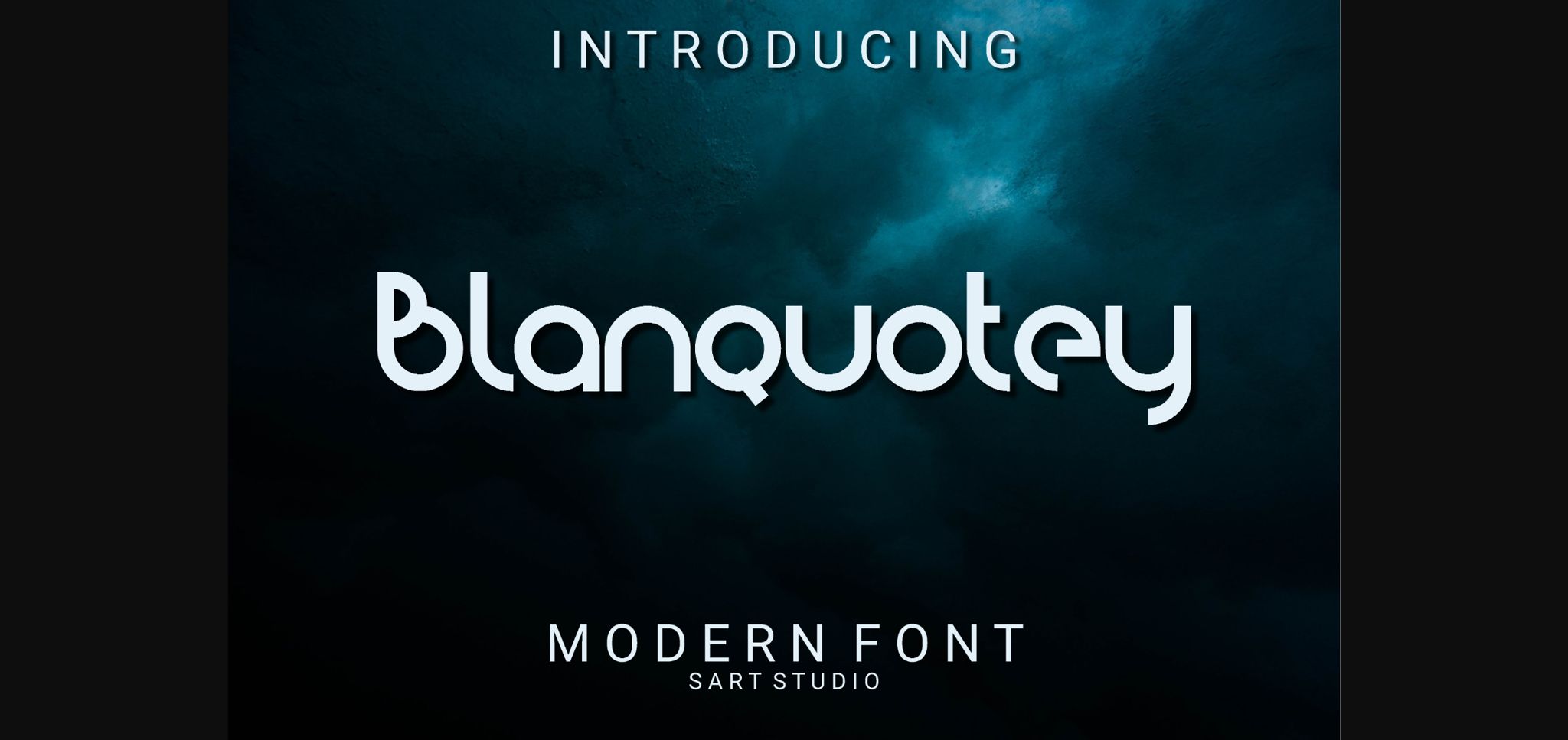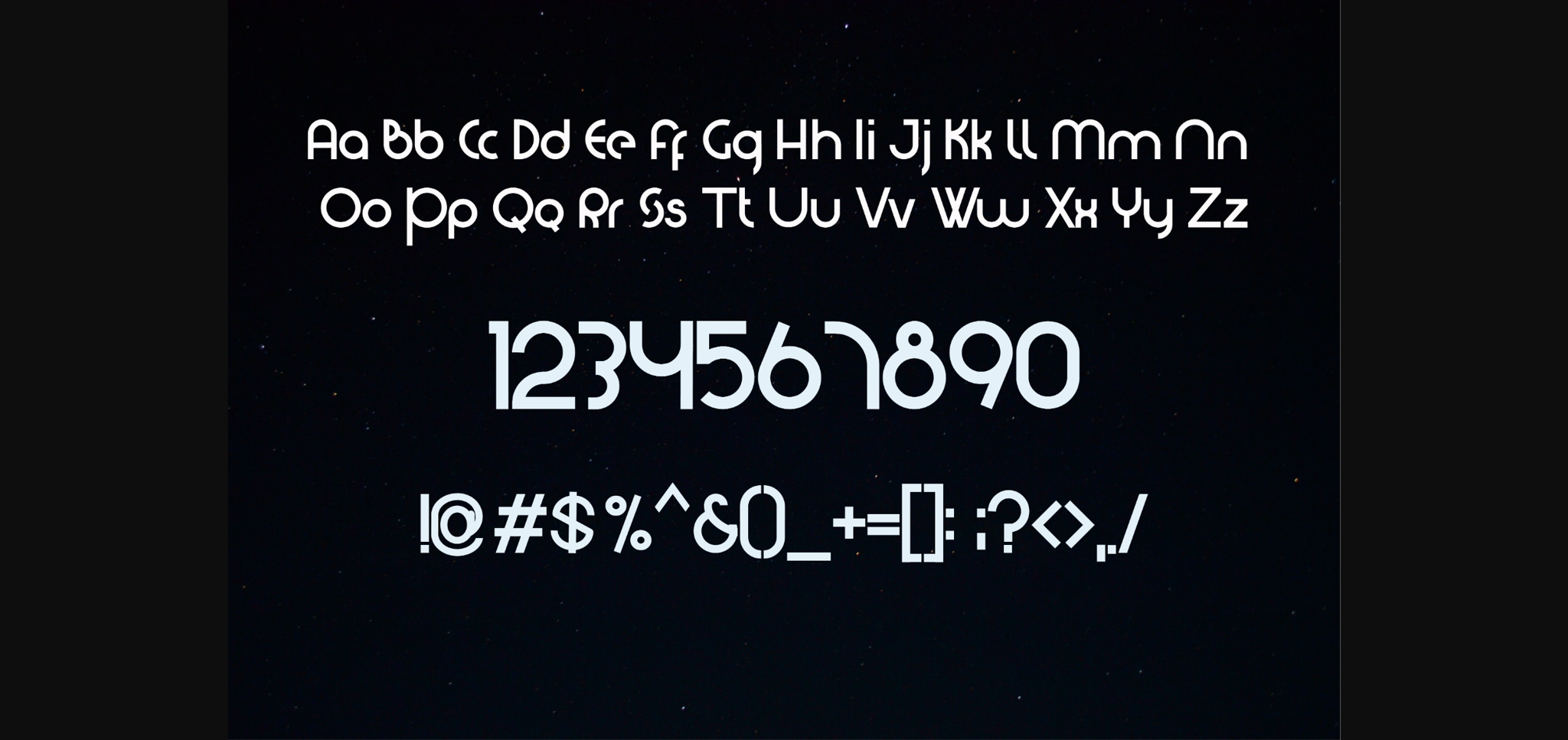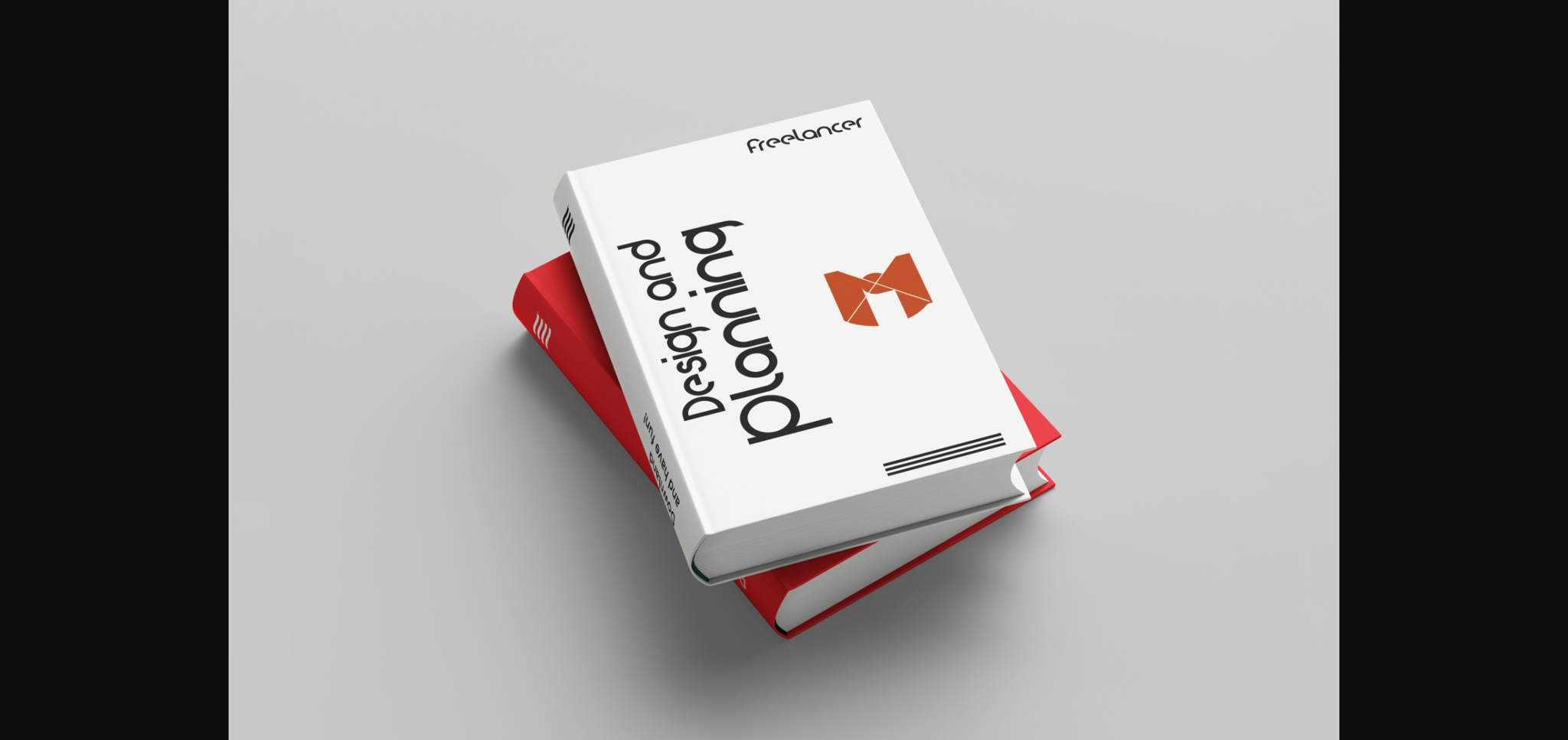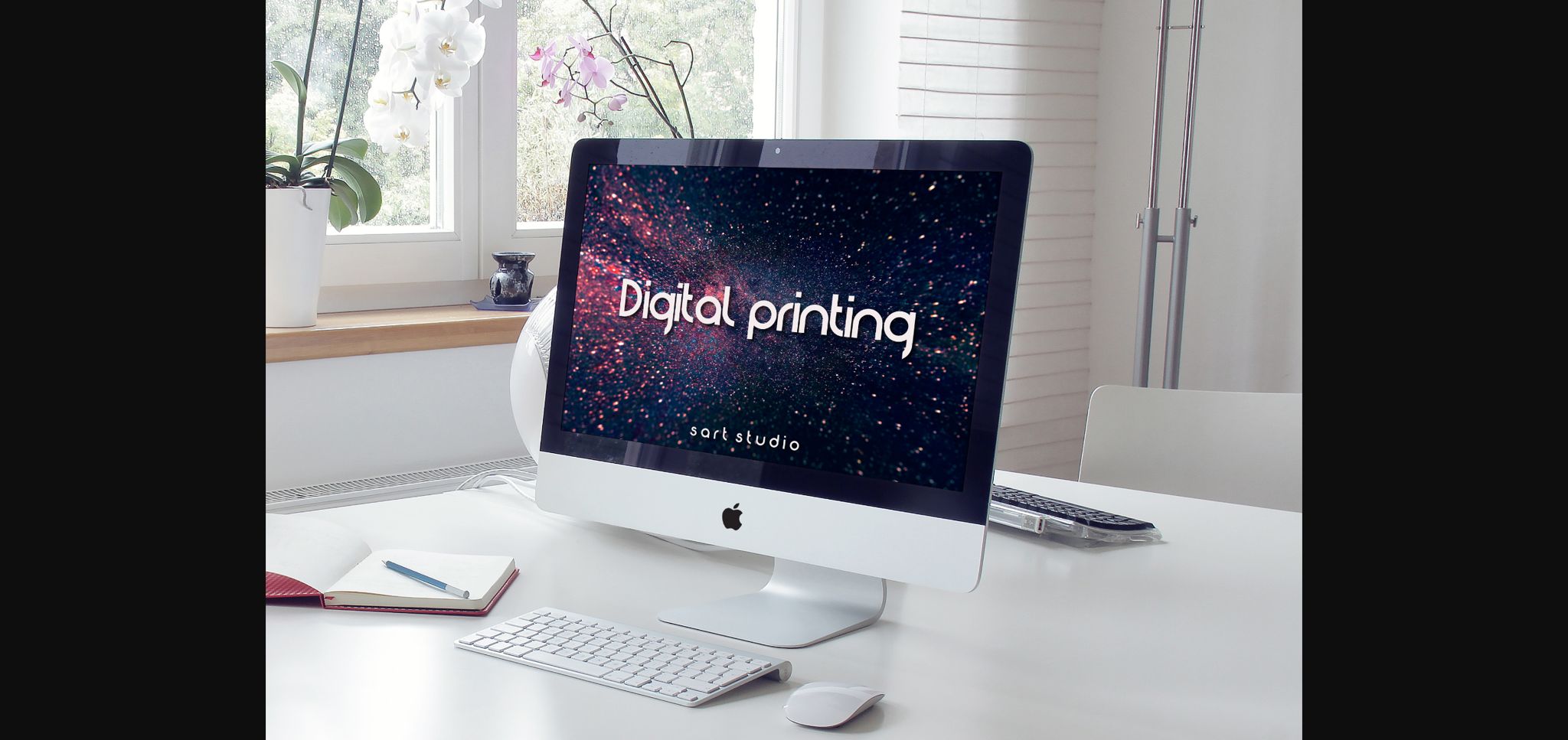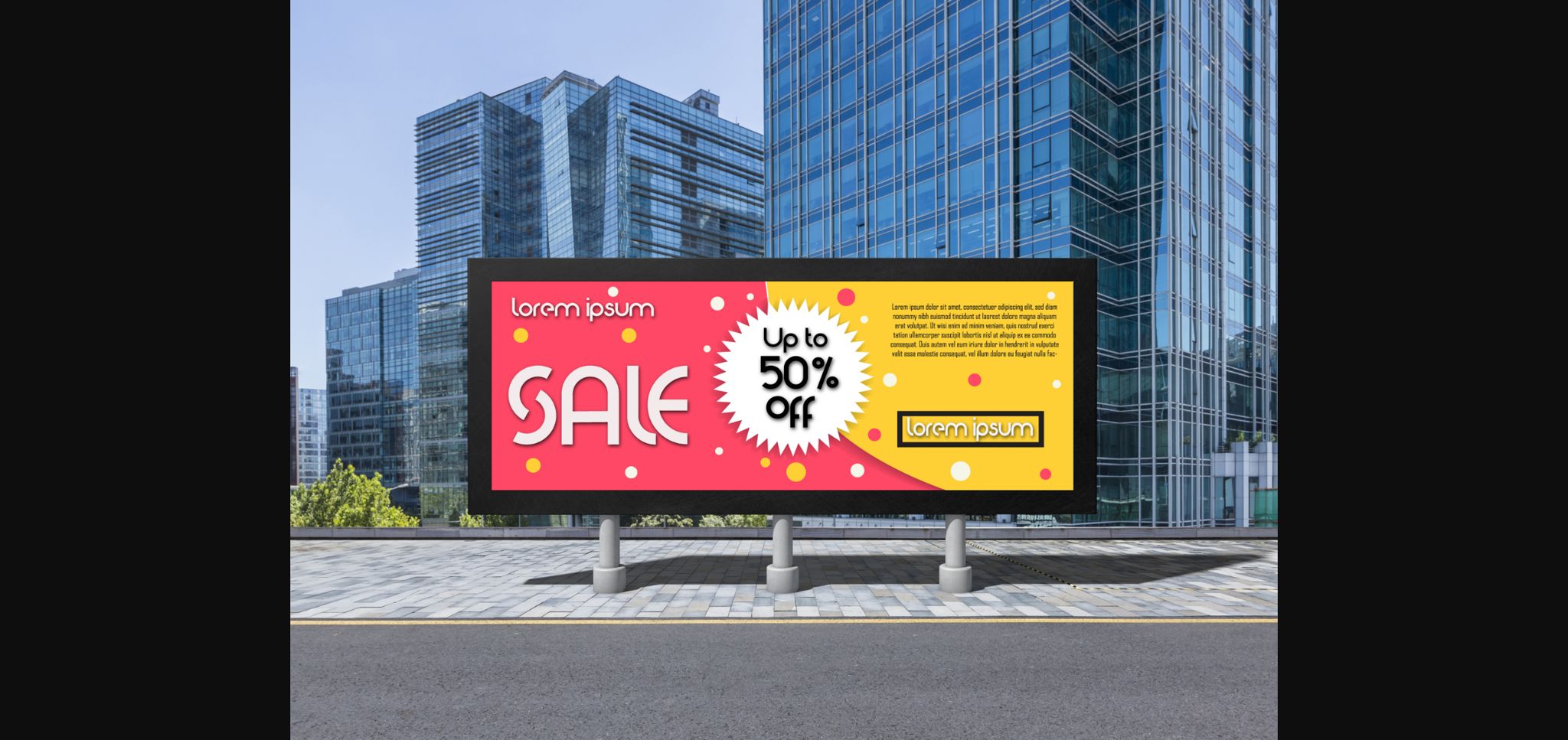
HomeSans Serif FontsBlanquotey Font Sans Serif Fonts Blanquotey Font FacebookXPinterestWhatsApp 1 of 7 ... Blanquotey Font Poster 2... Blanquotey Font Poster 3... Blanquotey Font Poster 4... Blanquotey Font Poster 5... Blanquotey Font Poster 6... Blanquotey Font Poster 7... About Blanquotey Font Blanquotey is a simple and modern font. Whether it’s for web, print, moving images or anything else – Blanquotey will look spectacular. DOWNLOAD NOW People also explored Saturday Morning Font Jenilla Font Moontype Font Umaima Font Foolish Hand Angelica Font Charity Pink Bella Canvas 3001 Mockup Aubergine Font Easy Font 317 0 TagsBlanquotey Font Previous articleMoontiland FontNext articleManasco Font LEAVE A REPLY Cancel reply Comment: Please enter your comment! Name:* Please enter your name here Email:* You have entered an incorrect email address! Please enter your email address here Website: Save my name, email, and website in this browser for the next time I comment. Personal Use Free Delions Personal Use Free Read more about this font Vanity Personal Use Free Read more about this font Helsinki Personal Use Free Read more about this font Sunflower Personal Use Free Read more about this font BLOG Exploring Font Trends Shaping Communication in the Digital Era Fonts, like all design elements, are subject to trends. They play a crucial role in communicating a brand's personality,... Best Fonts for T-Shirt Design – Top 2025 Picks The 10 Best Handwriting Fonts to Add Personality to Your Designs Best Fonts for YouTube Videos: Make Your Thumbnails Stand Out